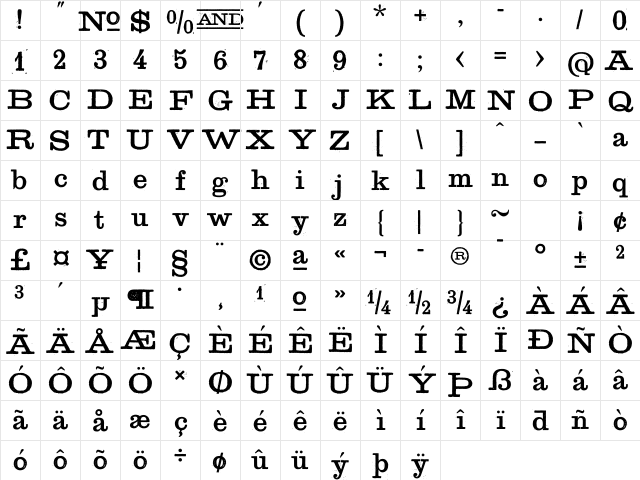
Golden Age is a composed and adaptable typeface that performs quietly and consistently across a wide range of design contexts.
Pro Tip: Use Golden Age in both headline and body roles to test its range before committing to a single application.